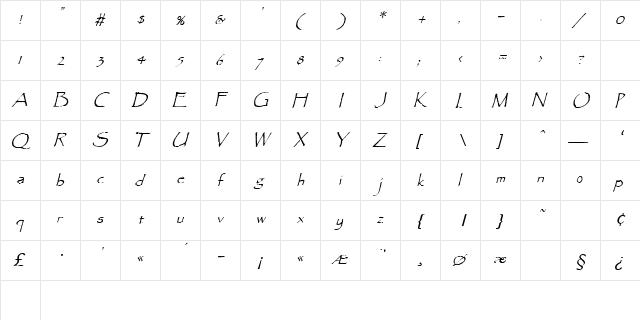
Fitzroy Italic
Design Context for Fitzroy Typeface
Fitzroy takes a measured approach to typography — its balanced proportions and neutral character make it a reliable workhorse for both digital and print work. The dynamic lean of this cut emphasises speed and emphasis in any layout.
Pro Tip: Use Fitzroy for emphasis, pull quotes, and subheadings where its slanted energy can add rhythm to the layout.